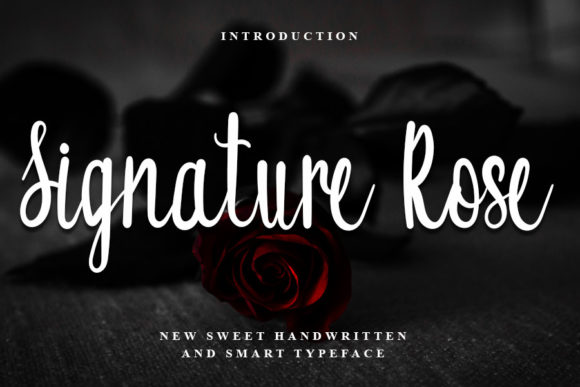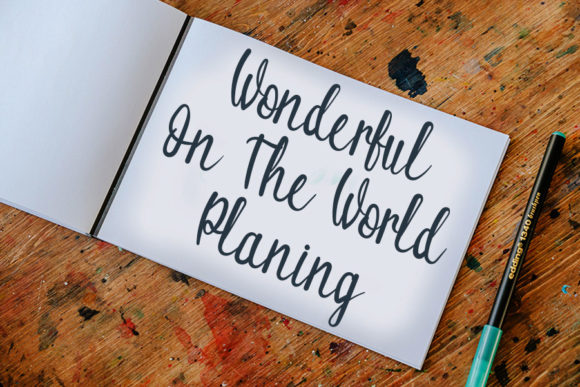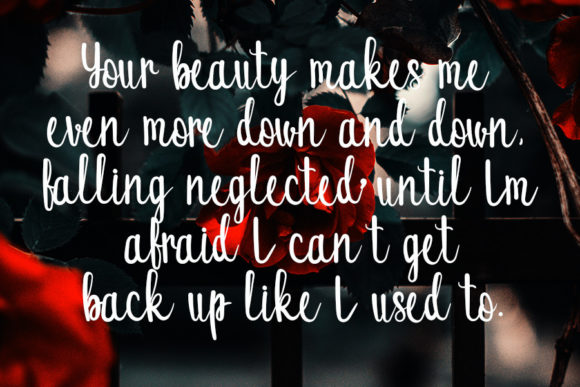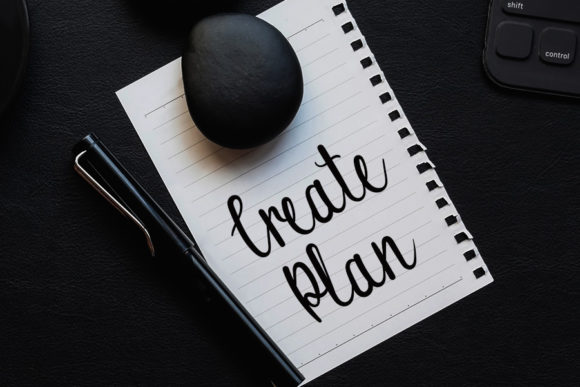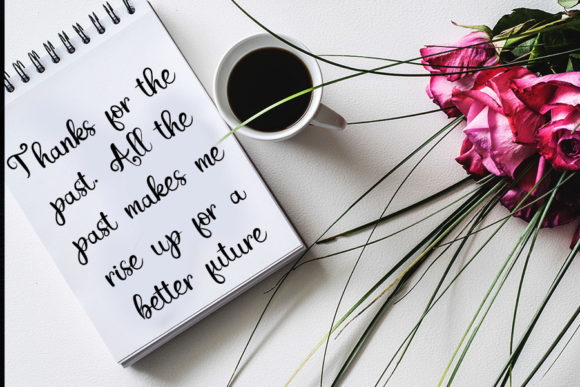
Signature Rose Font
About Signature Rose Font
Signature RoseĀ is a delicate and elegant handwritten font. Its distinct and well balanced letters make this font a masterpiece. Fall in love with its incredibly versatile style and use it to create spectacular designs!